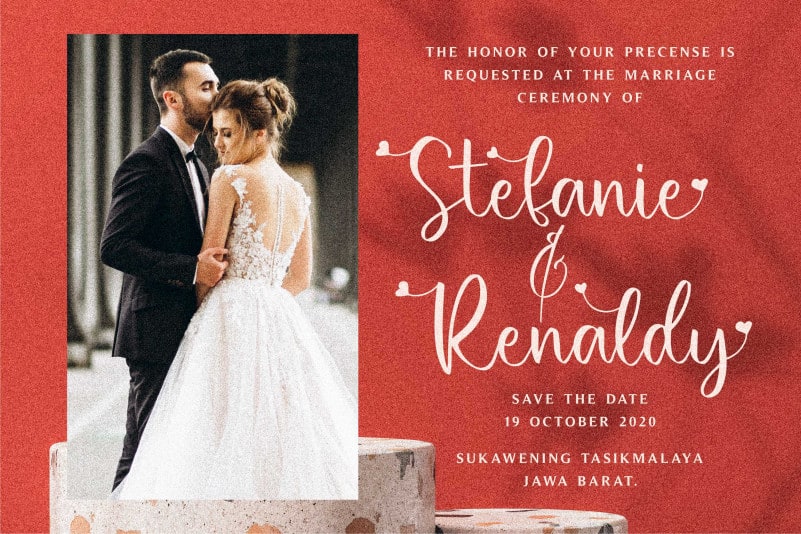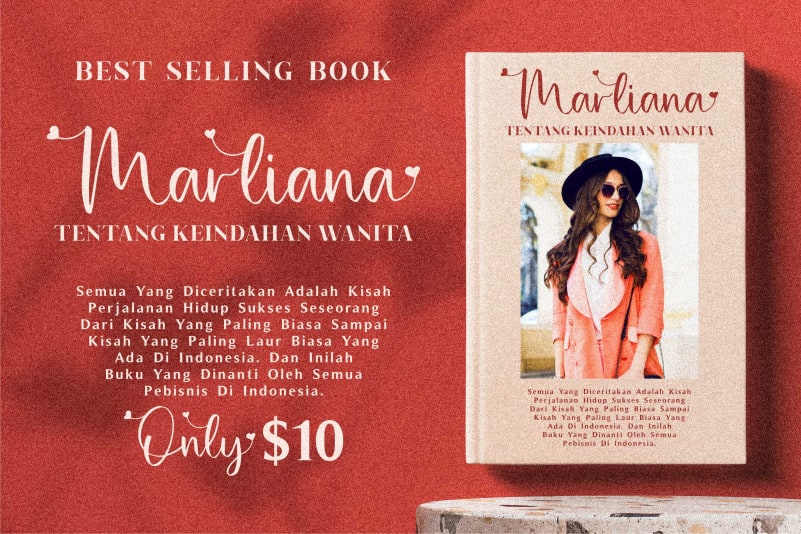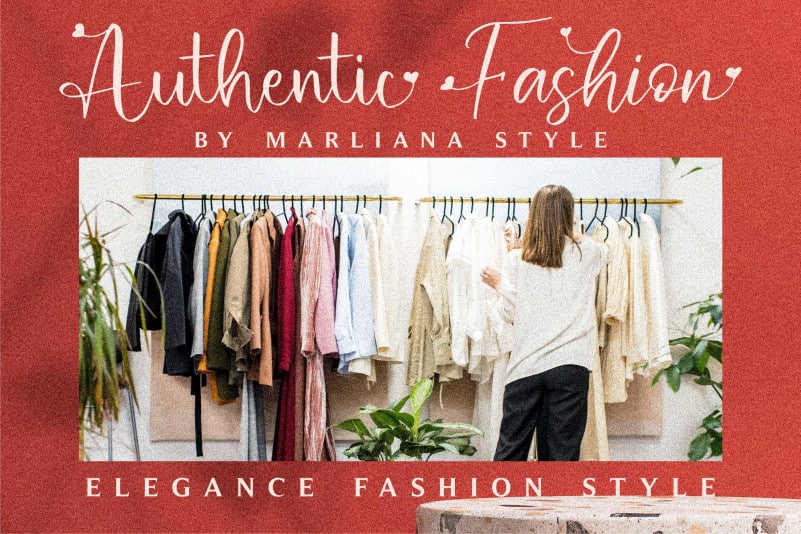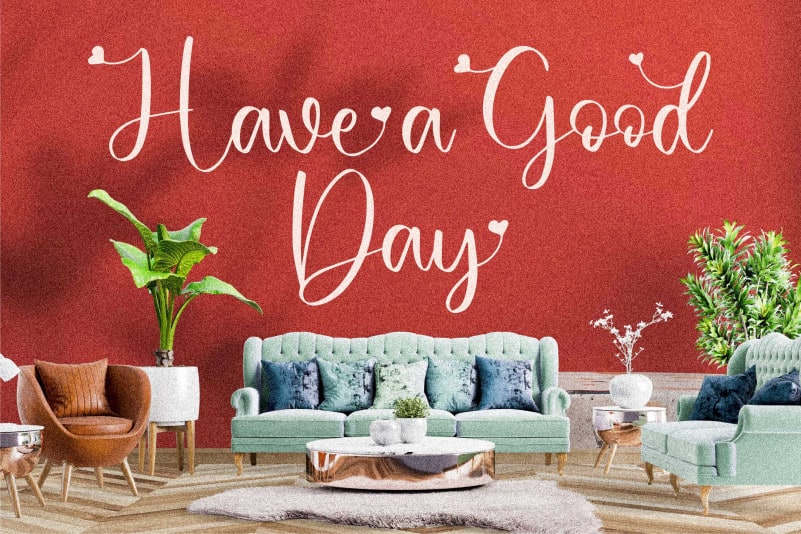
Hello December Calligraphy Font
Hello December Calligraphy Font is a flowing, smooth, rich, and elegant handwritten font. It is ideal for holiday-themed greeting cards and for any crafting project that requires a romantic touch.